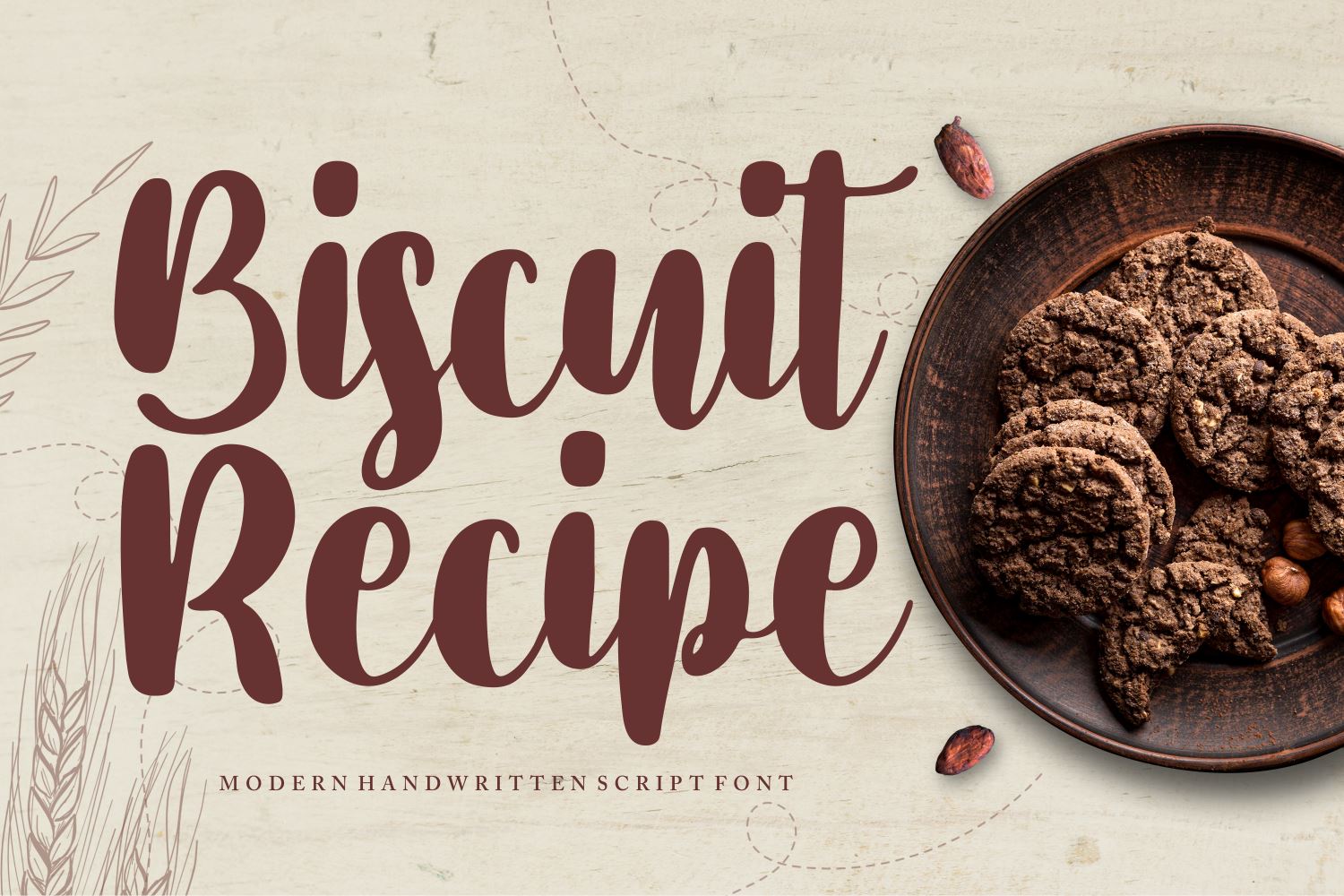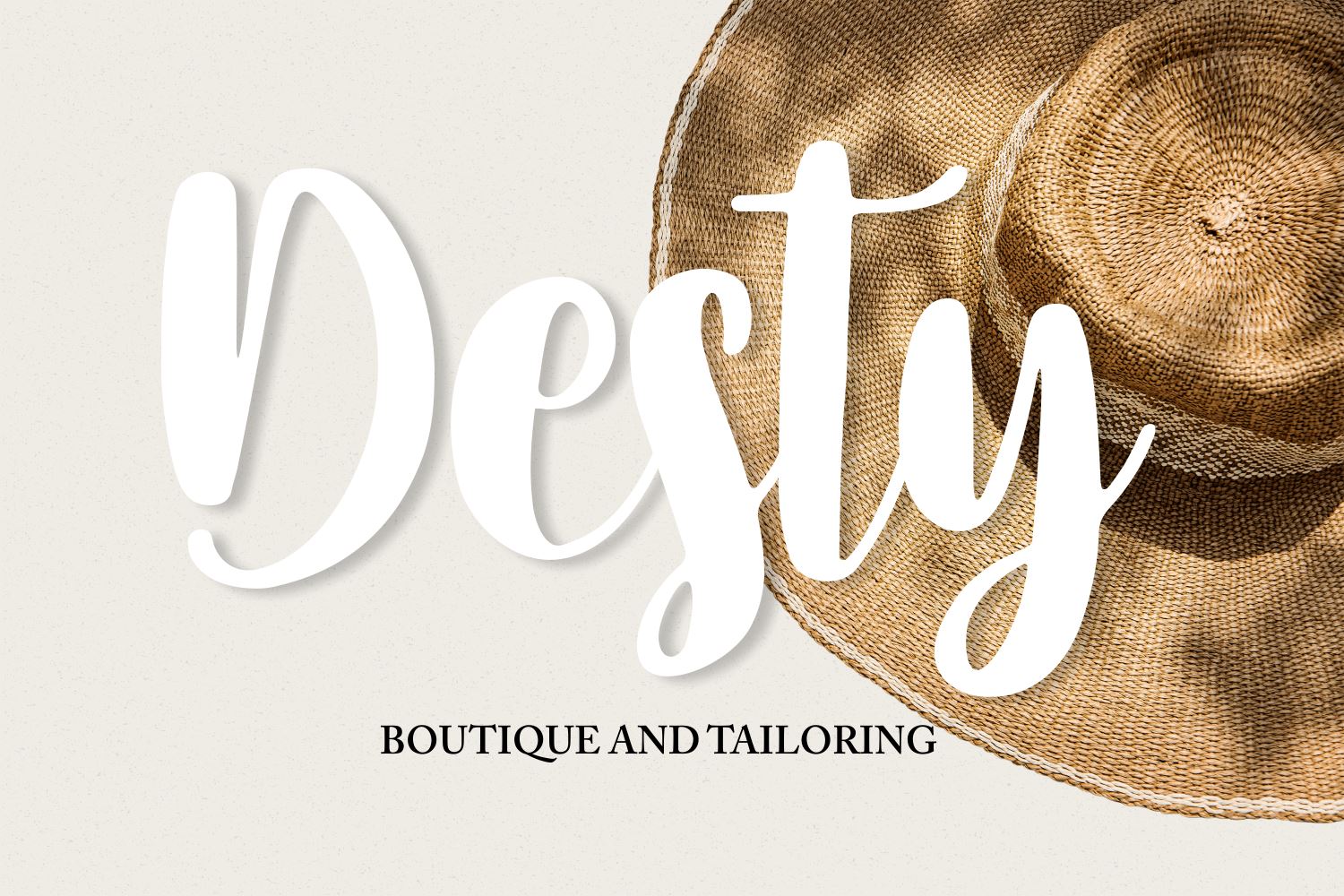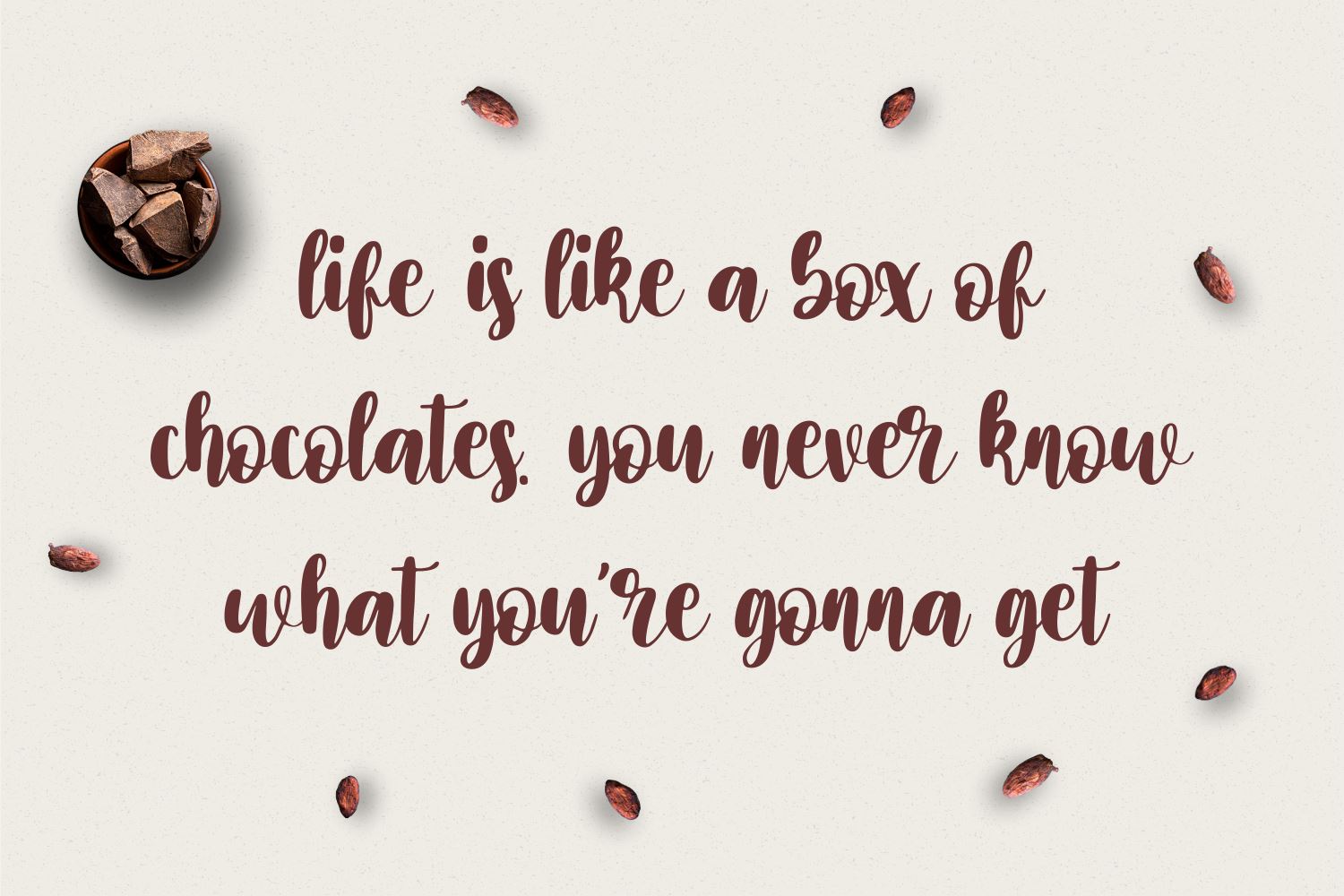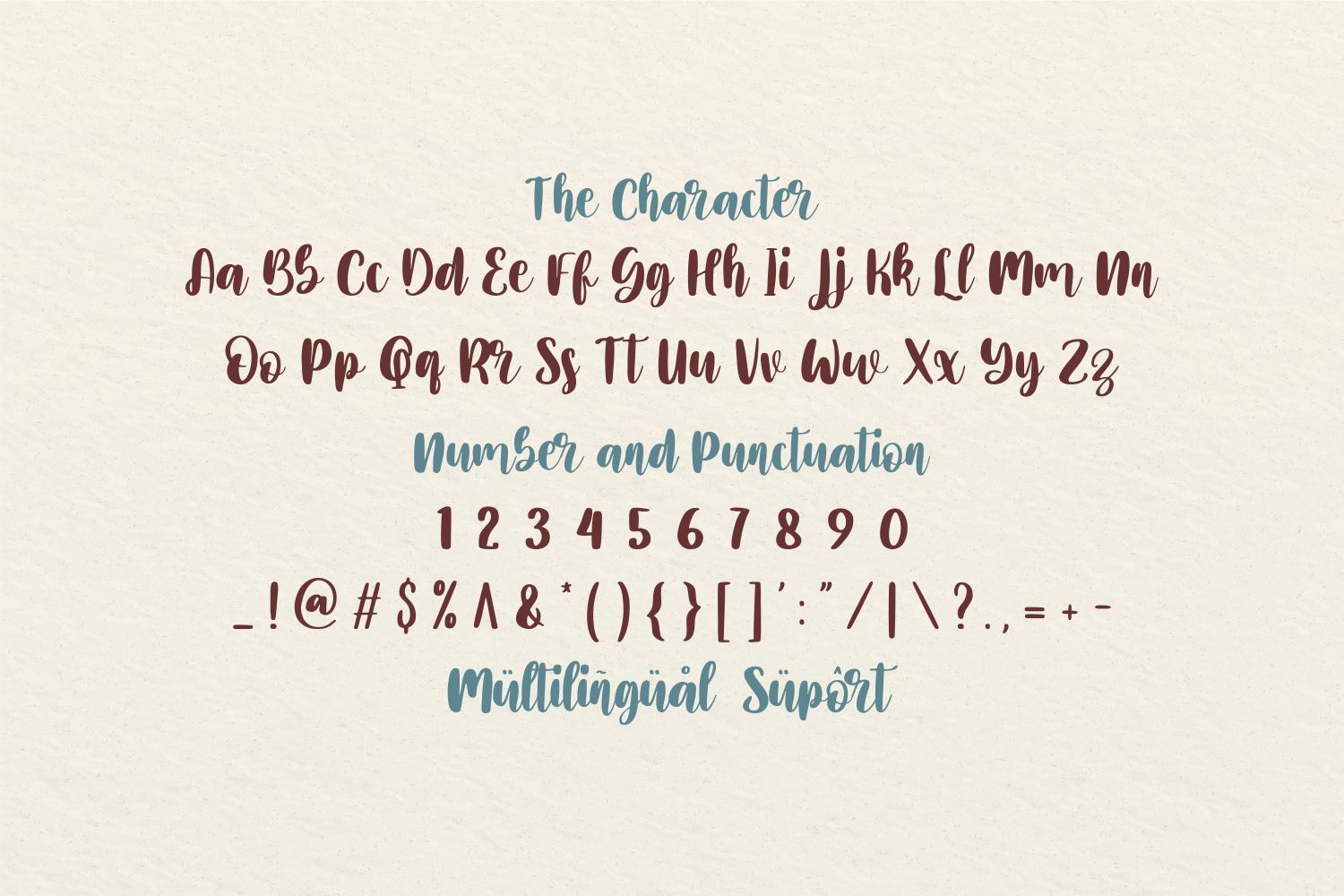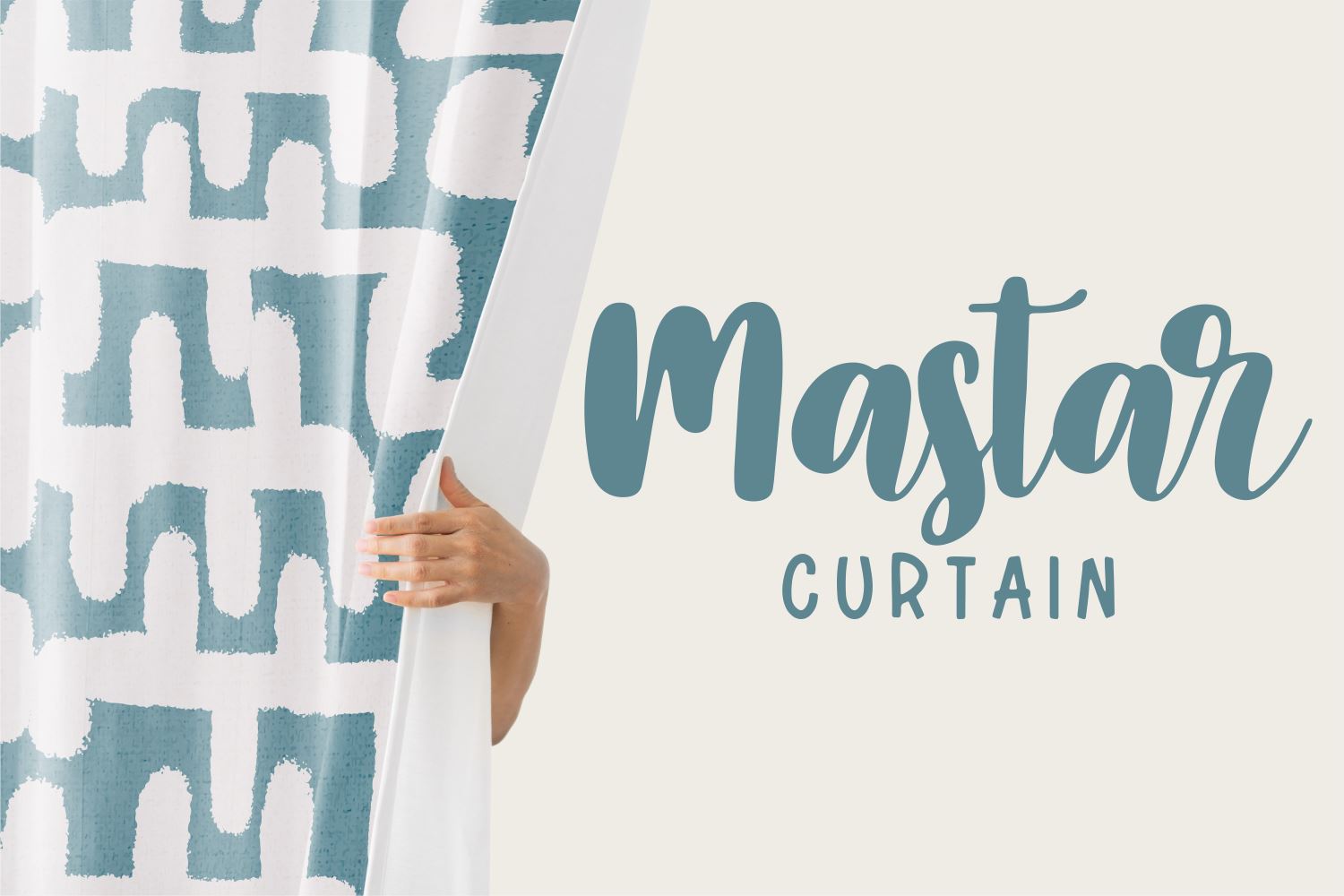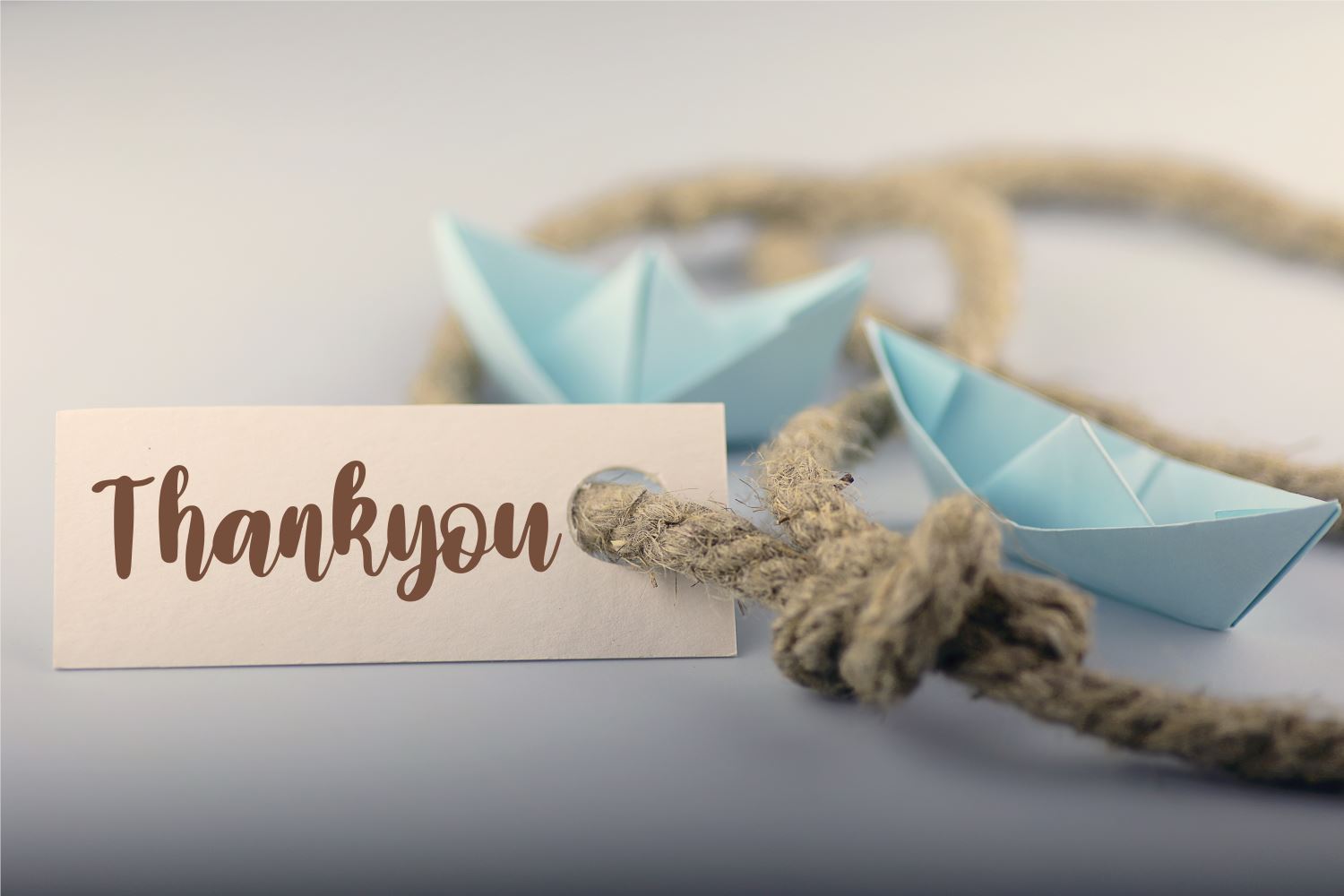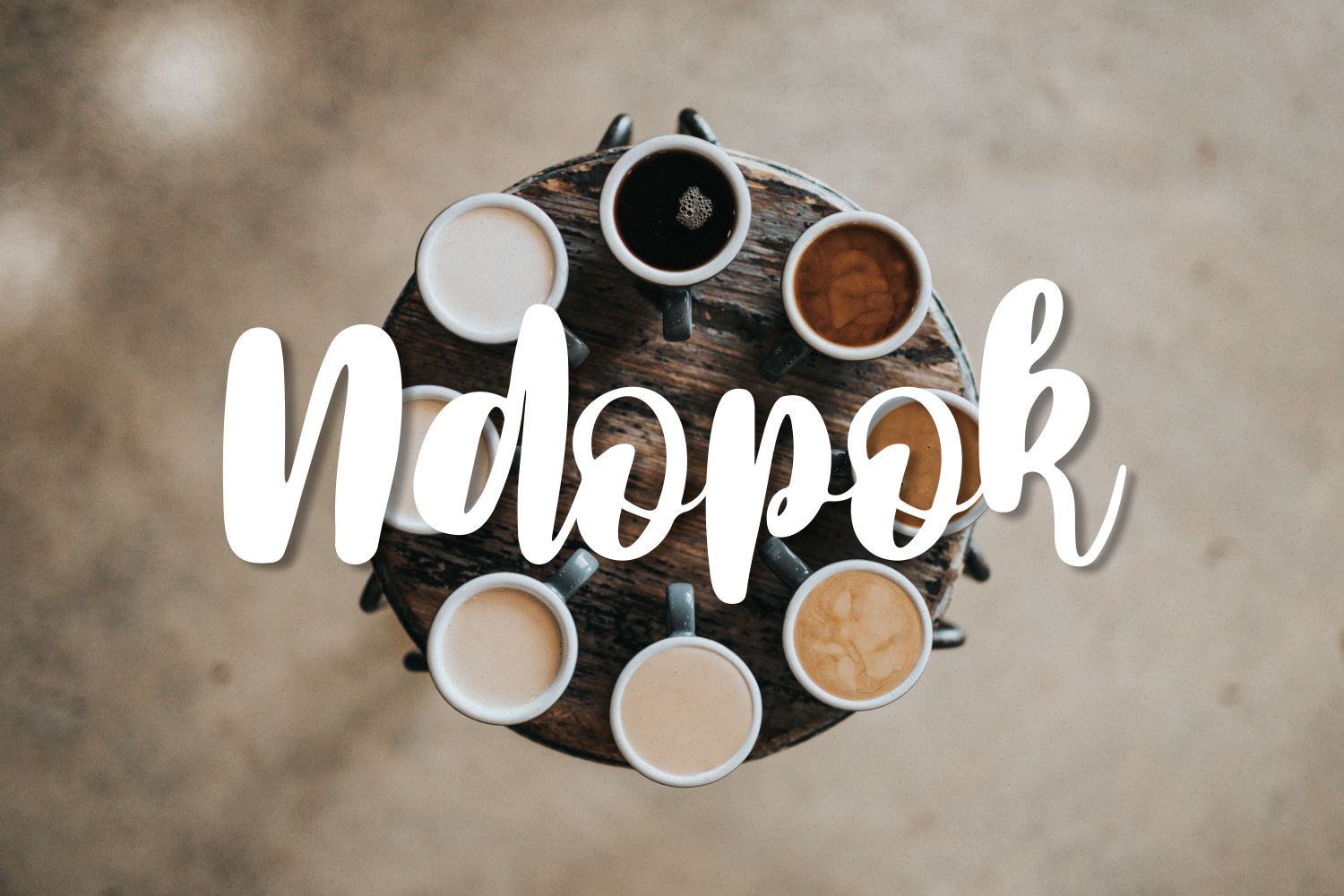
Biscuit Recipe
About Biscuit Recipe
Introducing Biscuit Recipe Font by Forberas Club Biscuit Recipe is a Modern Handwritten Font. Biscuit Recipe is perfect for book cover, product packaging, branding project, megazine, social media, kisd book fonts, or just used to express words above the background. This font includes TTF and OTF, This font also multilingual support.